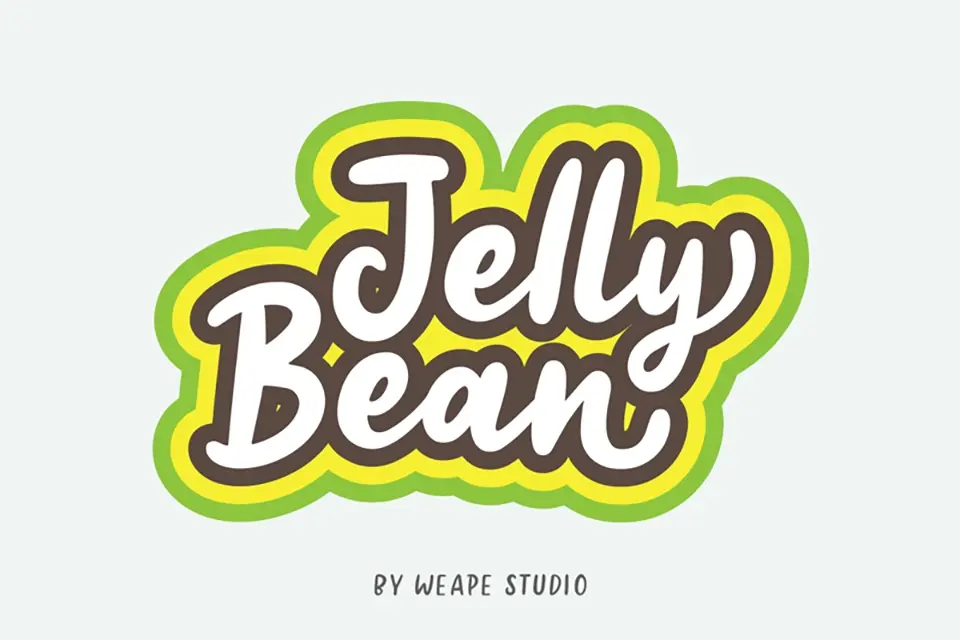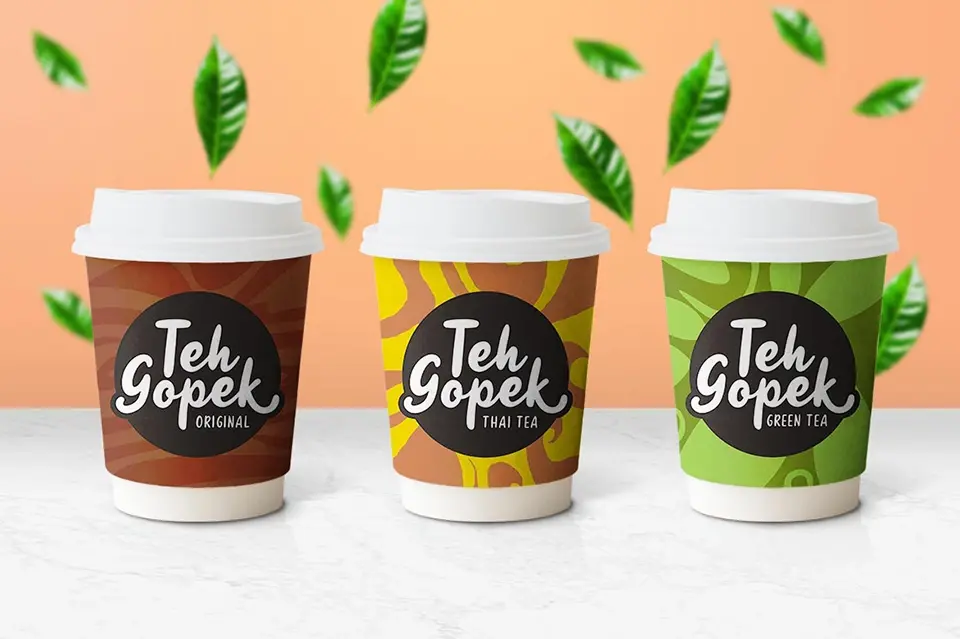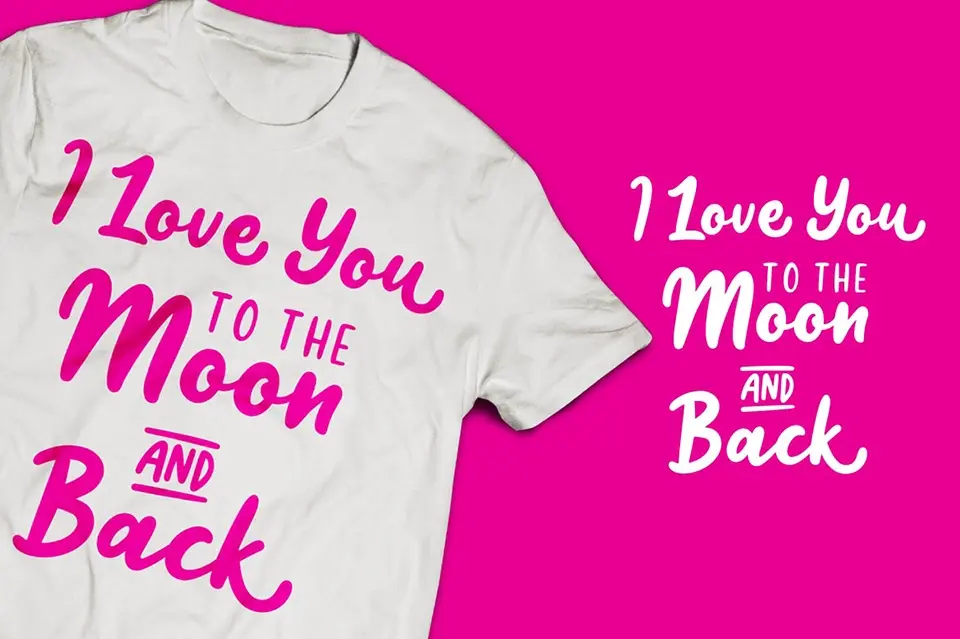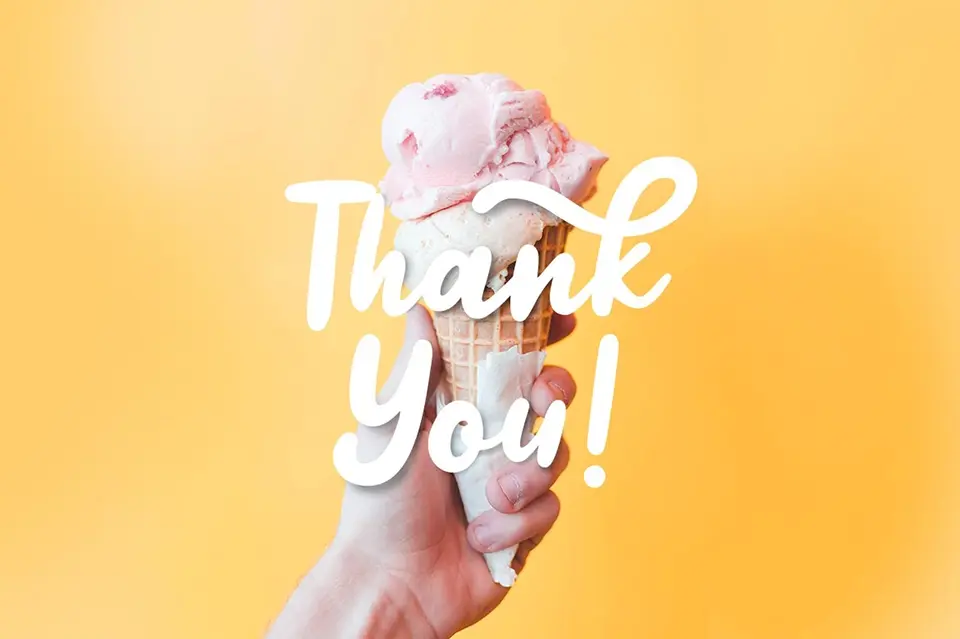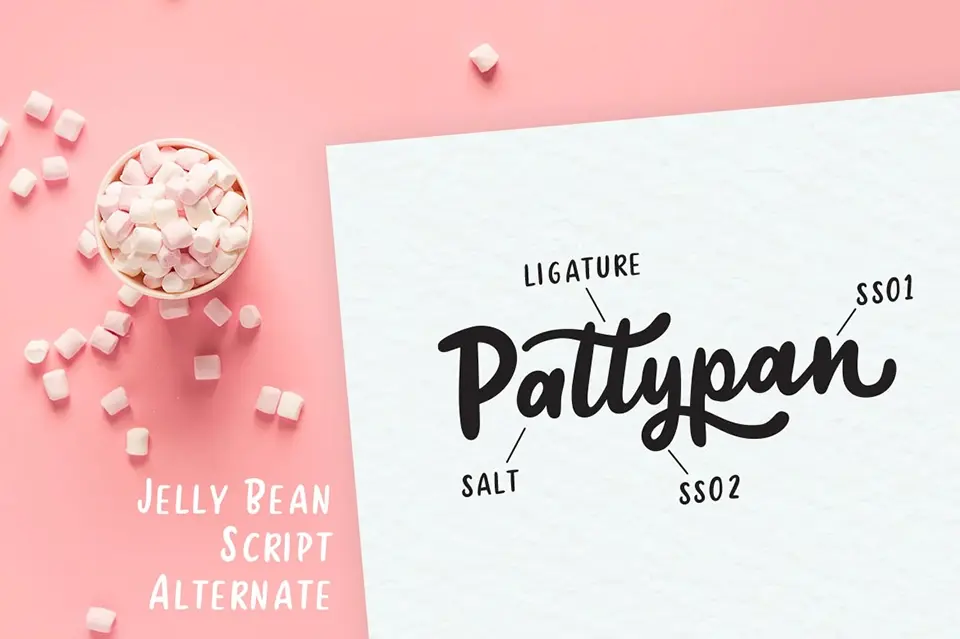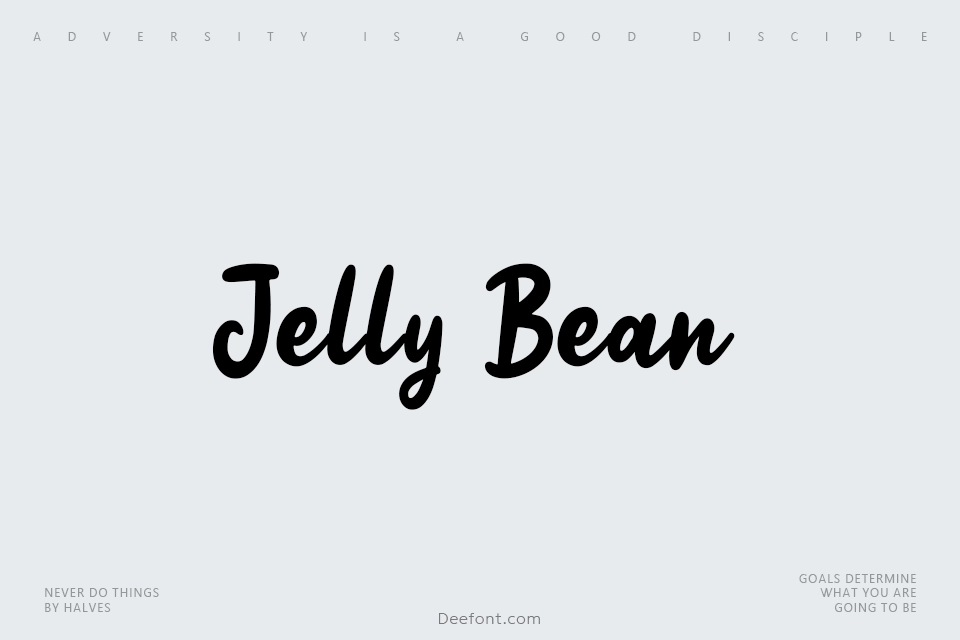
Jelly Bean Script Font
Jelly Bean Script is a hand-lettered fun bounce script font featuring tall uppercase letters designed by Weape Studio. This playful and charming typeface combines energetic strokes with creative flair, making it perfect for logo design, birthday cards, children’s t-shirts, book covers, quotes, and packaging projects. The font includes ligatures and alternates that add unique stylistic variations, allowing designers to create fresh and cute designs by combining different character styles for truly personalized typography.